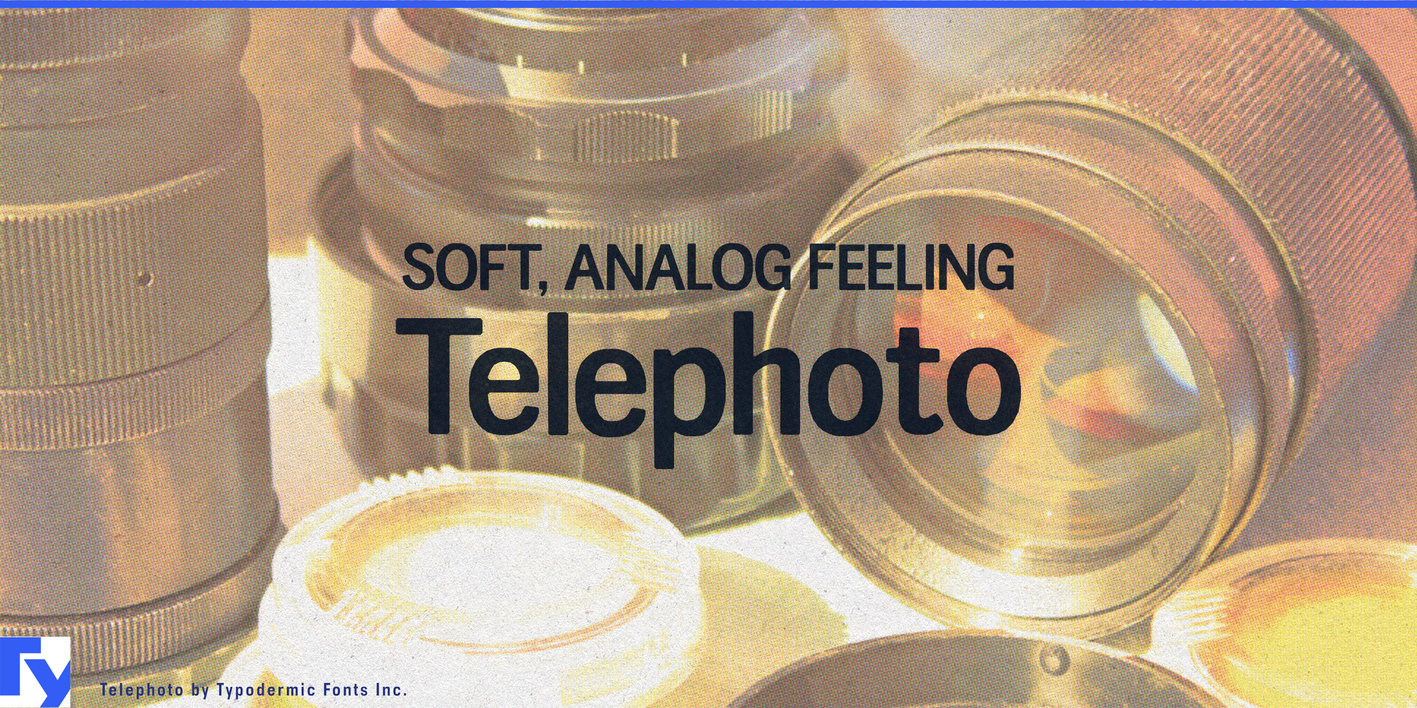
Telephoto Font is perfect for photography studio branding, camera equipment packaging, professional photographer portfolios, photography workshop materials, lens manufacturer communications, photography magazine layouts, camera store signage, photo exhibition catalogs, visual journalism publications, and sharply focused marketing communications.
Telephoto Font is exciting because it captures the precise focus and visual clarity of professional photography with its optically refined letterforms that seem crafted through telephoto lenses and carry the sharp definition that transforms distant subjects into intimate portraits and fleeting moments into eternal memories. Its photographically precise character design reflects both the technical mastery required for professional photography and the artistic vision that recognizes extraordinary beauty in ordinary moments, making it perfect for brands celebrating visual storytelling and photographic excellence.
Telephoto Font family includes thin, light, regular, medium, bold, and black weights, each with corresponding italic versions. The font family also features photography ornaments, lens-inspired ligatures, camera symbols, and visual decorative elements that enhance its optical aesthetic and photography industry versatility.
This photographically precise typeface represents the perfect fusion of technical excellence and visual artistry. Telephoto Font Free Download enables designers to experience its focusing potential before making a commercial commitment. The font's ability to convey both technical precision and artistic vision makes it ideal for photography studios, camera manufacturers, and visual arts organizations targeting photographers and audiences passionate about visual storytelling and photographic craftsmanship.
Whether you're developing photography business identities, creating camera equipment materials, or designing visual arts communications, Telephoto Font brings an unmistakable sense of optical clarity and photographic expertise to every project. Its optically refined character and photography heritage create powerful connections that resonate with photographers and audiences appreciating visual excellence and photographic artistry.
The font's versatility excels in visual arts and technical environments where photographic precision and artistic vision are paramount. Its sharp character makes it particularly effective for photography studios, camera manufacturers, photography schools, and visual arts organizations seeking to establish authoritative relationships with photographers and audiences who demand optical excellence and visual storytelling mastery.
For designers working on projects requiring genuine photographic appeal and visual precision, Telephoto Font offers an exceptional solution. Its photographically sharp presence and comprehensive camera-themed elements provide the tools needed for creating truly focused communications, while its optical excellence ensures your designs capture the technical precision and artistic vision that defines the most exceptional photography and visual storytelling excellence.